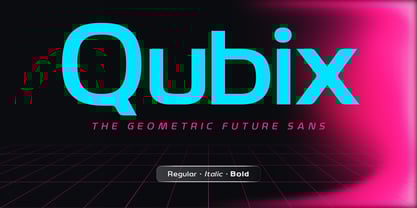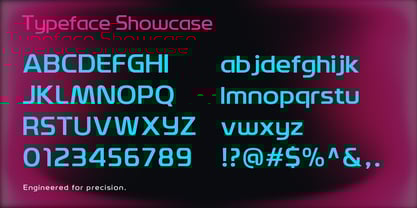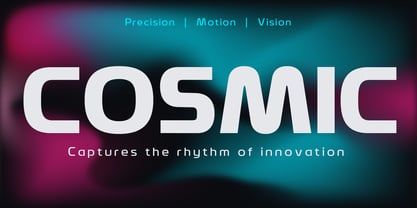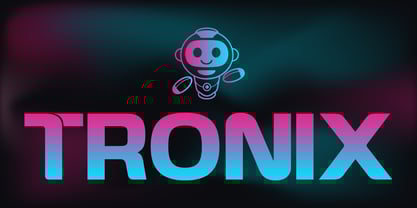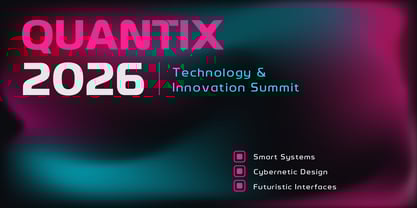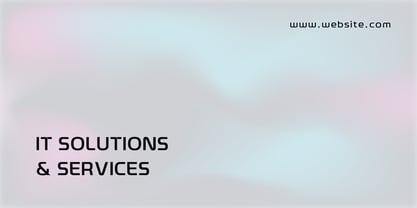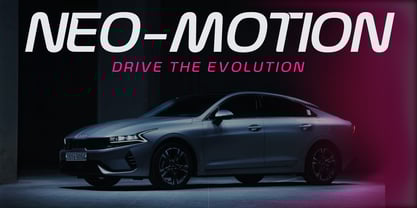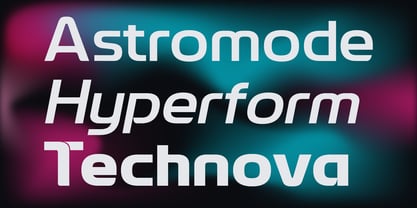
Qubix
by XdCreative
The Qubix Font Family was designed by Faldy Kudo and published by XdCreative. Qubix contains 3 styles and family package options. More about this family
Qubix is a modern geometric sans-serif crafted for the future. Its precise shapes, balanced rhythm, and minimal aesthetic reflect a blend of technology and timeless design. With 3 styles — Regular, Italic, and Bold — Qubix adapts effortlessly from bold display headlines to clean UI text. Perfect for branding, futuristic interfaces, posters, and editorial layouts that demand clarity and confidence. Discover the harmony between function and form — Qubix, The Geometric Future Sans.
Designers: Faldy Kudo
Foundry: XdCreative